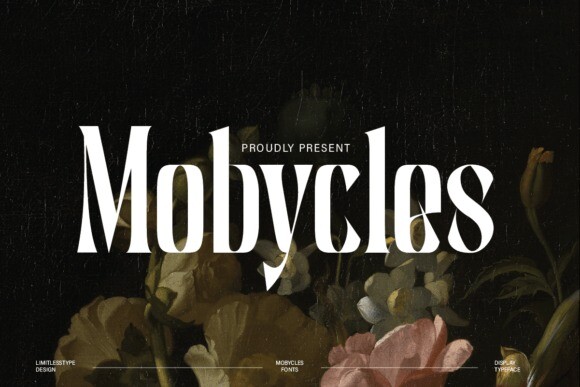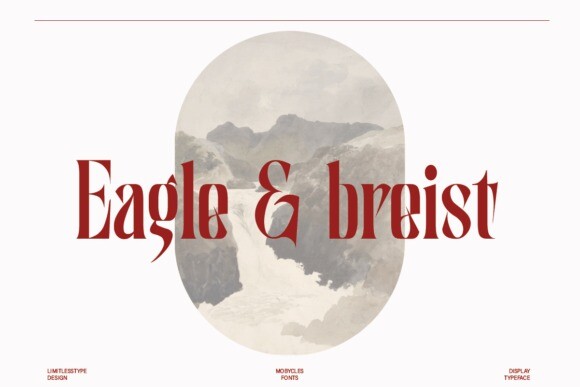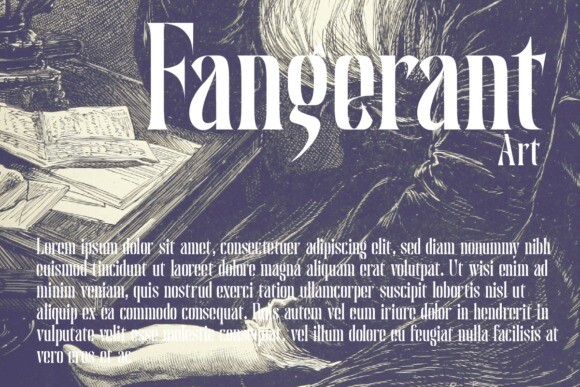
Mobycles Font
Mobycles is an exquisite display font. Specially designed for luxury, elegant, feminine projects, this font is perfectly suitable for creating modern, chic designs.